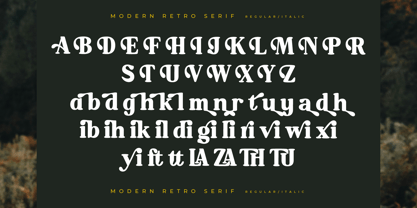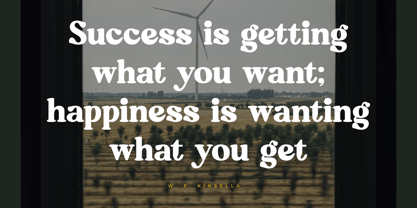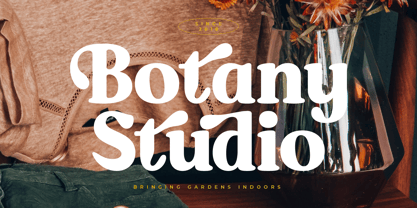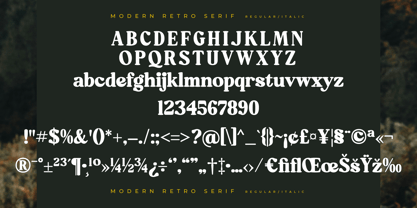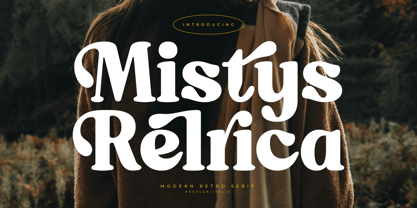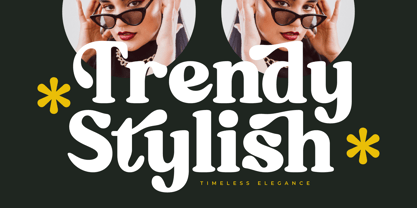
Mistys Relrica
by Letterena Studios
The Mistys Relrica Font Family was designed by Heru Utama Putra and published by Letterena Studios. Mistys Relrica contains 2 styles and family package options. More about this family
Mistys Relrica is a luxurious serif font that captivates with its regal charm and refined aesthetics. Crafted for grandeur, its stately serifs and intricate details exude sophistication. Elevate your designs with the timeless elegance of Mistys Relrica, a font that commands attention and exudes opulent style.